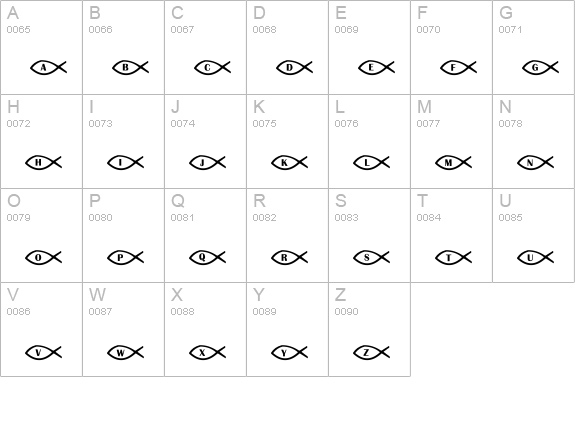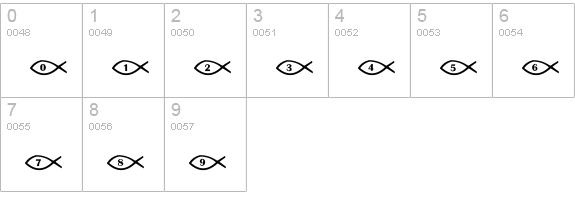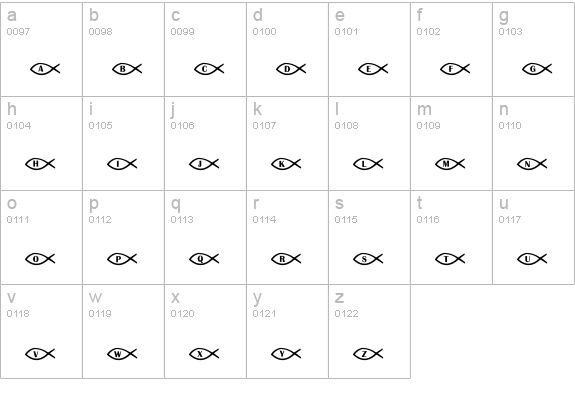
Christos font is a modern and elegant typeface that exudes sophistication and style. With its clean lines and sleek design, this font is perfect for a wide range of design projects, from branding to editorial design. The versatility of Christos font makes it a great choice for both digital and print applications. What sets Christos font apart is not just its aesthetic appeal, but also the fact that it is available for free download at FontsMarket.com. This means that you can easily access this high-quality font without having to worry about any additional costs. Whether you're a designer looking to elevate your projects or a business owner in need of a professional font for your branding, Christos font is the perfect choice. Download it today and see for yourself the impact this font can have on your designs.